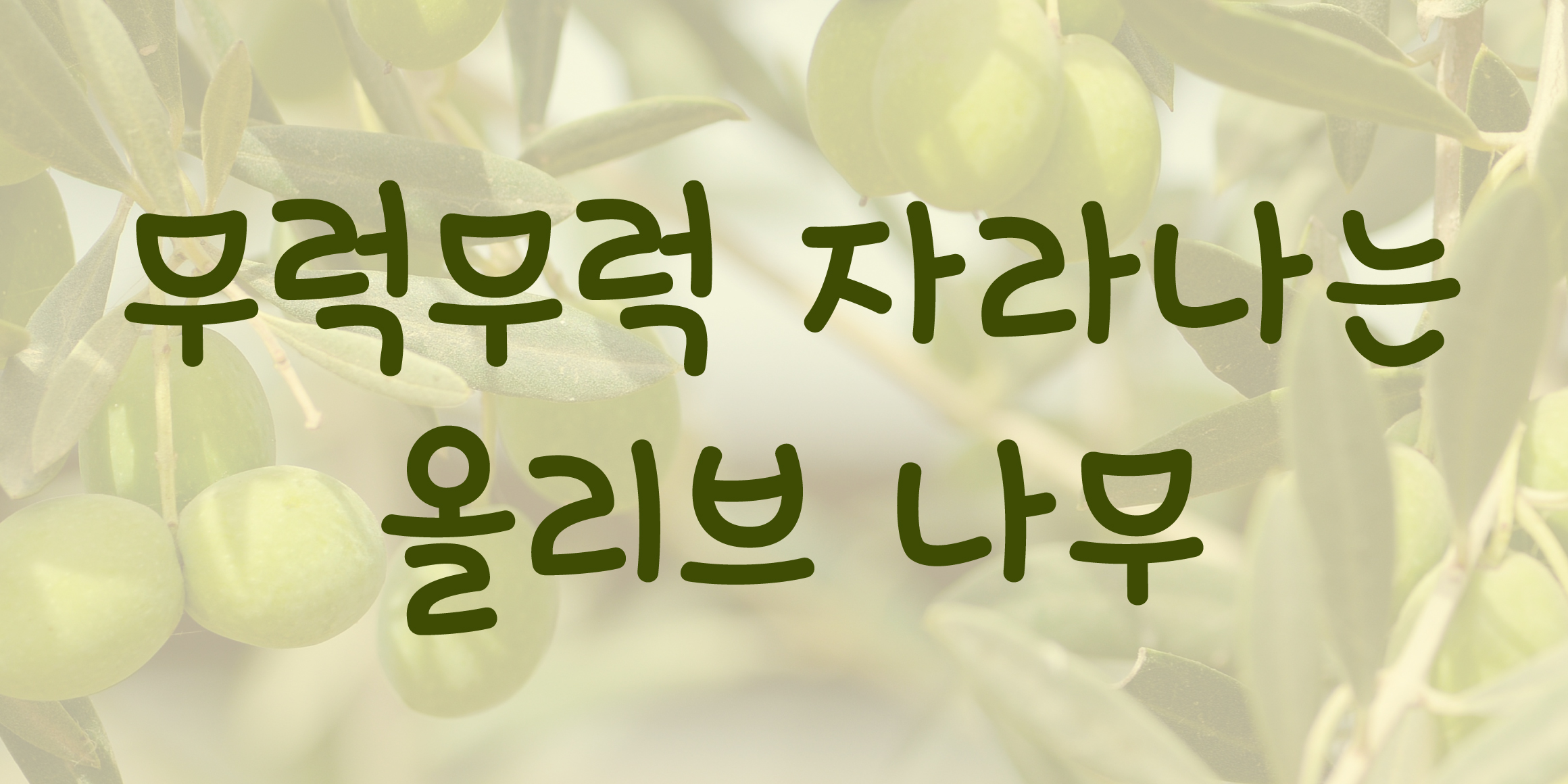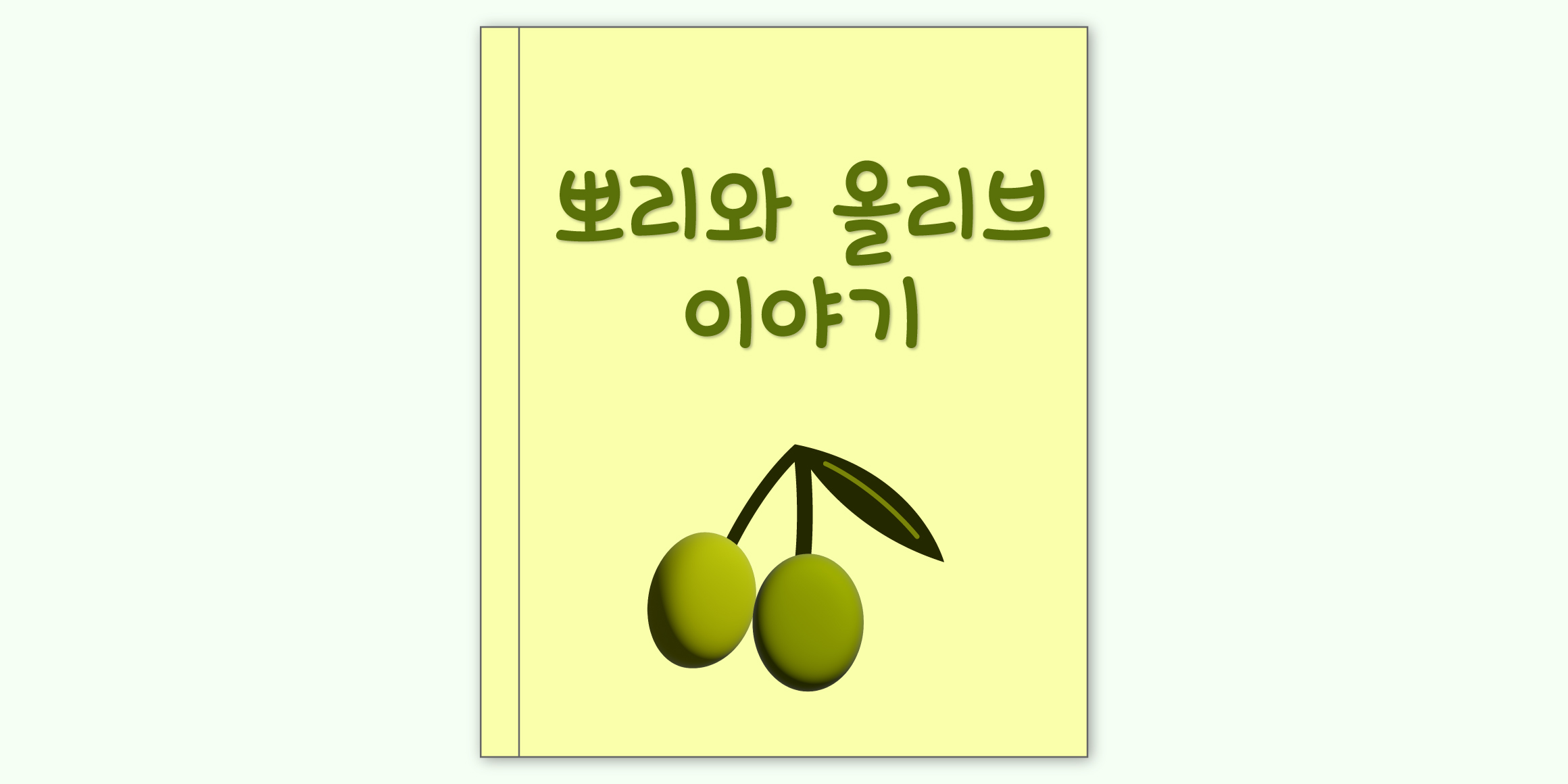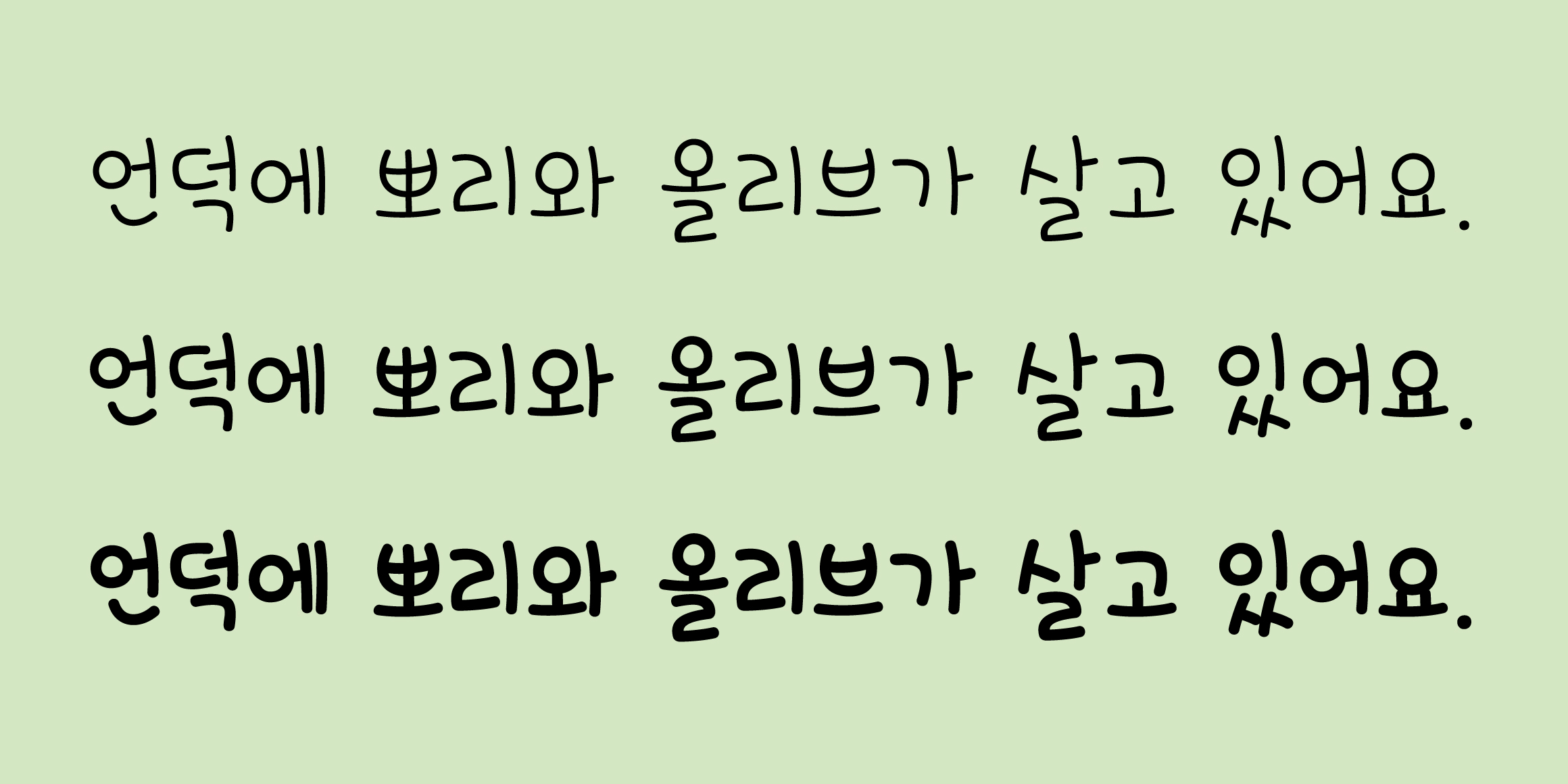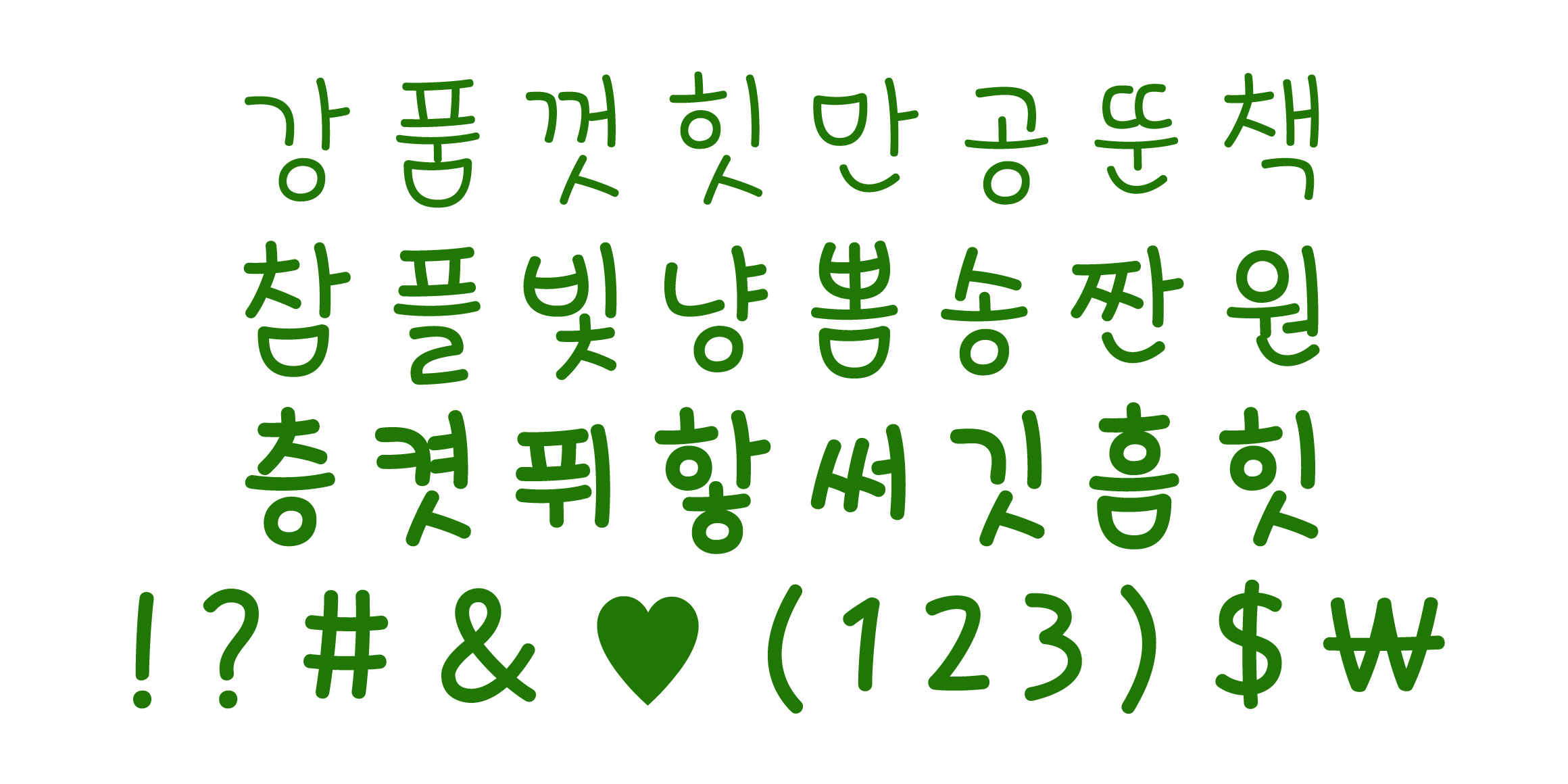
DXPporiwaOlribeu
It is a font with handwriting sensibility that excludes mechanical feelings and utilizes the free and honest expression unique to children.
The soft curves and round shape are alive, expressing an overall friendly impression. Not excessive cuteness and cute atmosphere naturally blend into everyday sentences. This font is recommended for use in media that want to convey bright and positive messages such as children's and toddler contents, children's books, workbooks, character brands, goods, SNS, and broadcast subtitles.